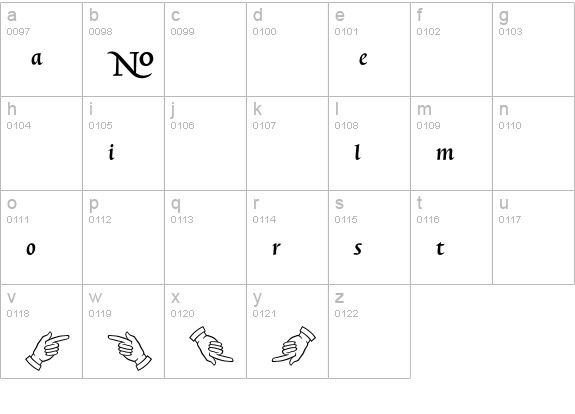
TriniteNo4-MediumItalicPi Font Details
TriniteNo4-MediumItalicPi font is a beautifully elegant and versatile typeface that exudes sophistication and charm. With its medium italic style, it adds a subtle touch of elegance to any design project. The gracefully curved letterforms and delicate strokes make this font a perfect choice for adding a touch of refinement to invitations, logos, headlines, and more. What makes TriniteNo4-MediumItalicPi font even more appealing is that it is available for free download at FontsMarket.com. This means that you can easily access and use this incredible font in your creative projects without any hassle or cost. Whether you are a designer, artist, or simply someone who loves typography, TriniteNo4-MediumItalicPi font is a must-have in your font collection. The versatility of this font allows it to seamlessly blend into various design styles, from classic and vintage to modern and contemporary. Its medium italic style adds a touch of uniqueness and sophistication, making it perfect for creating eye-catching headlines or adding a stylish flair to your logos. The letterforms are crafted with precision and attention to detail, ensuring that each character is visually appealing and balanced. TriniteNo4-MediumItalicPi font is not only visually stunning but also highly legible, ensuring that your message is conveyed with clarity and style. Whether you are designing a poster, branding materials, or a website, this font will effortlessly enhance the overall aesthetic and readability of your project. With its freely available download at FontsMarket.com, TriniteNo4-MediumItalicPi font offers a wonderful opportunity to elevate your design work without any financial constraints. Don't miss out on this fantastic font that combines elegance, versatility, and accessibility. Download TriniteNo4-MediumItalicPi font today and unlock a world of endless design possibilities.